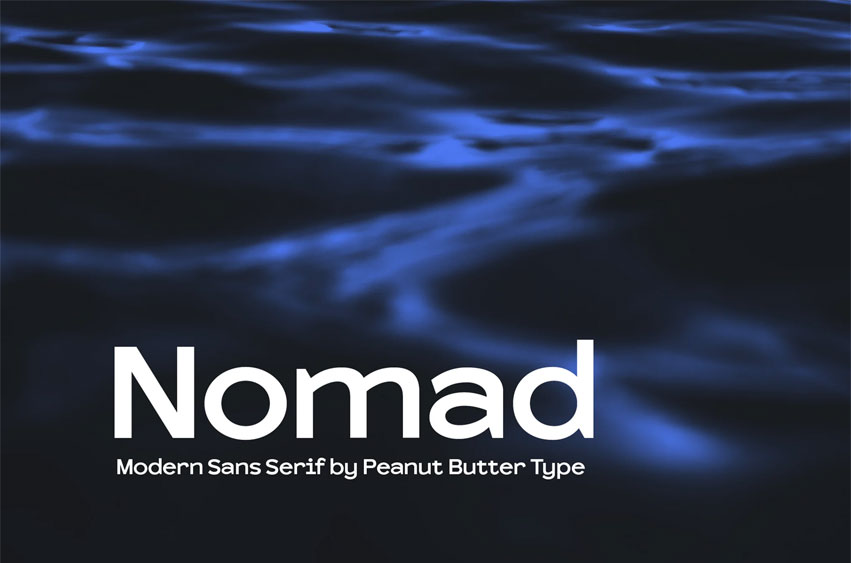
Nomad Modern Font
Nomad Modern Font is the modern sans-serif typeface that blends clean elegance with timeless versatility. Designed for creators who crave simplicity without sacrificing personality, Nomad delivers crisp lines, balanced spacing, and a contemporary edge that elevates any project.
Whether you’re building a bold brand identity, designing sleek editorial layouts, or crafting a standout website, Nomad adapts effortlessly—making your message not just seen, but remembered. Let your words travel far with the confident clarity of Nomad.